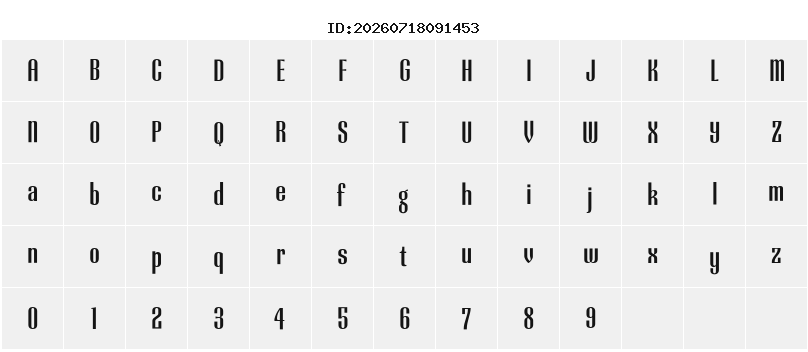
About CgRadiantBdExCd.ttf
CgRadiantBdExCd.ttf is a modern, elegant sans-serif font designed for ultimate readability and visual harmony. Perfect for branding, headlines, web design, and print materials.